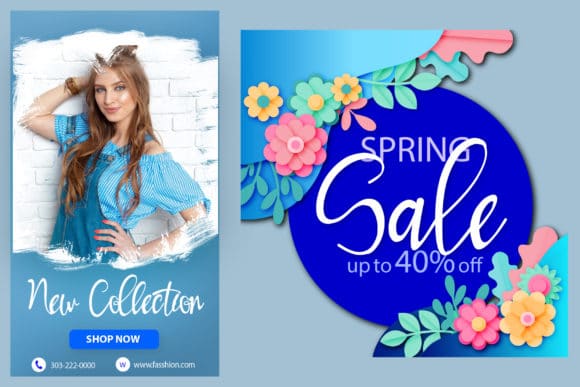
Good Day simplifies elegance into one truly outstanding handwritten font. Whether you’re looking for fonts for Instagram or calligraphy scripts for DIY projects.
This font is PUA encoded which means you can access all of the cute glyphs and swashes with ease! It also features a wealth of special features including alternate glyphs and ligatures.